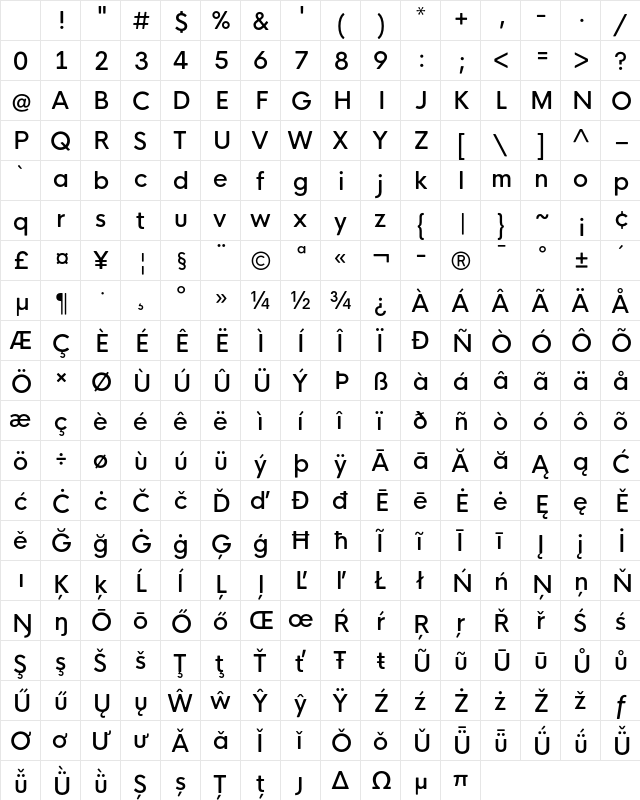
Complete HK Nova Medium R glyph index. Displaying only characters natively supported by HK Nova Medium R font.
HK Nova is a composed and adaptable typeface that performs quietly and consistently across a wide range of design contexts.